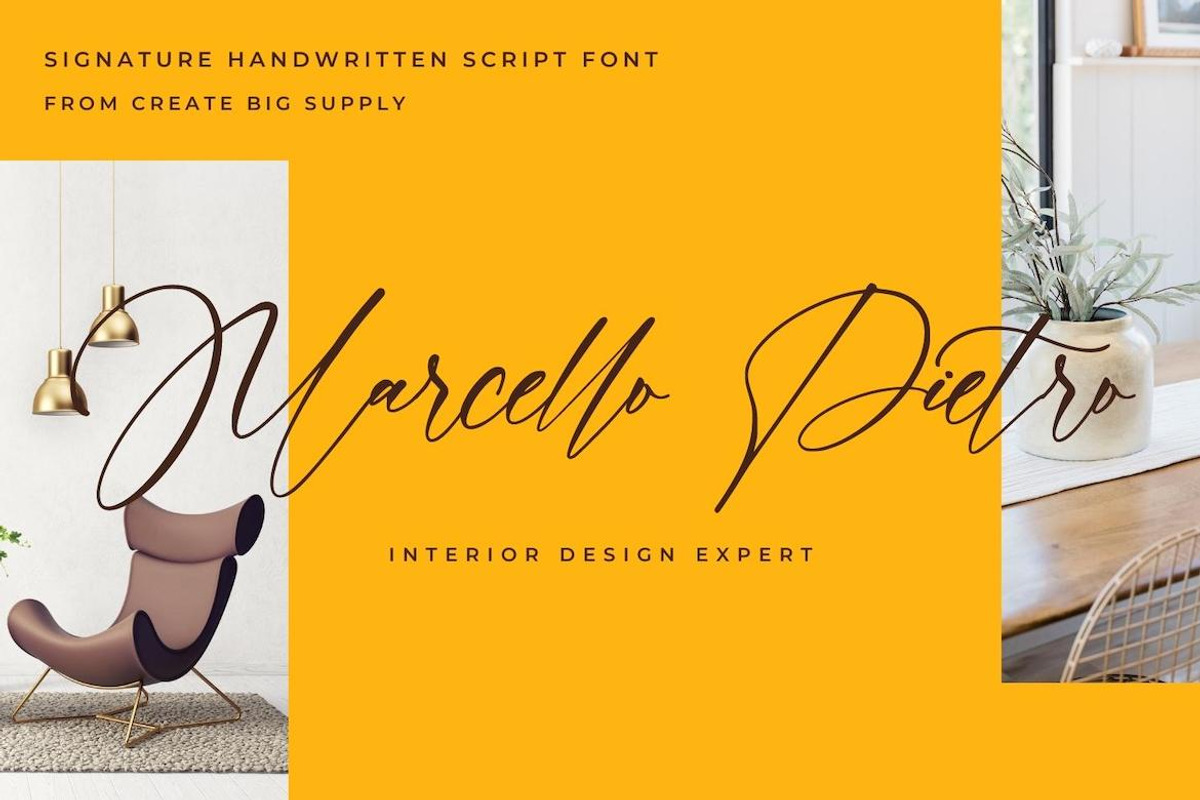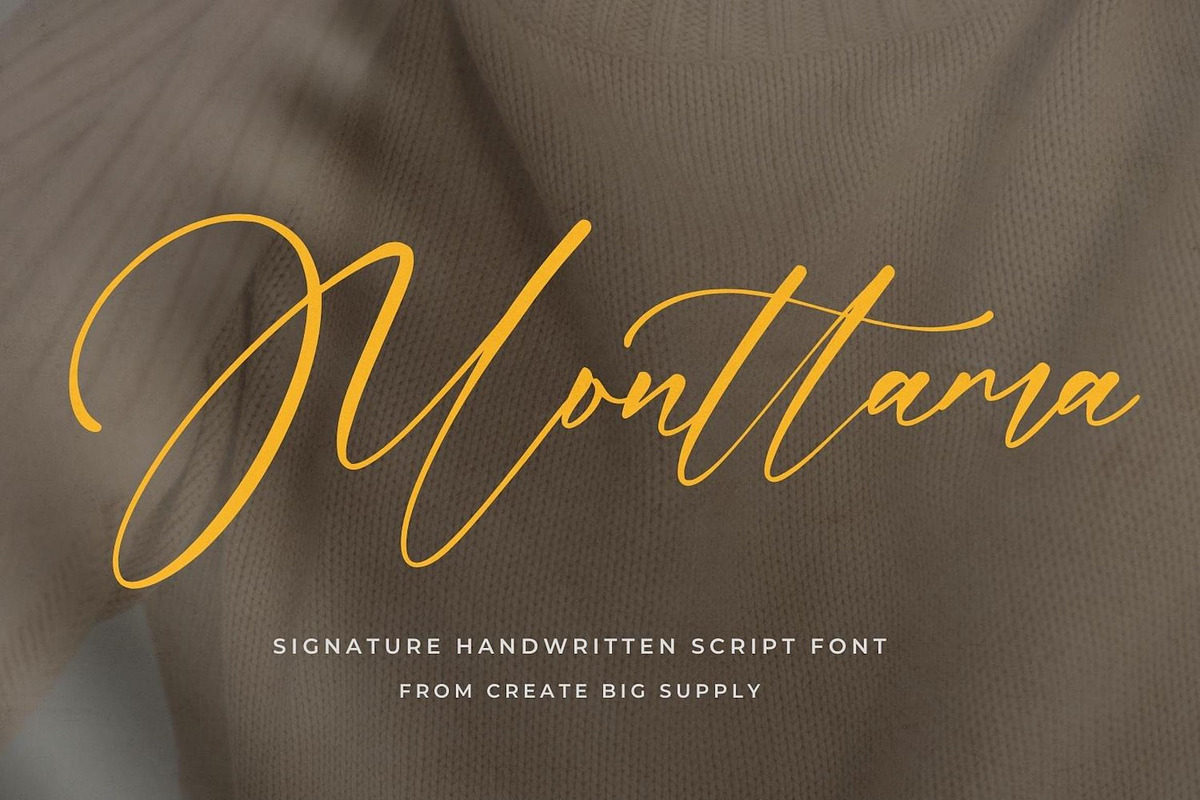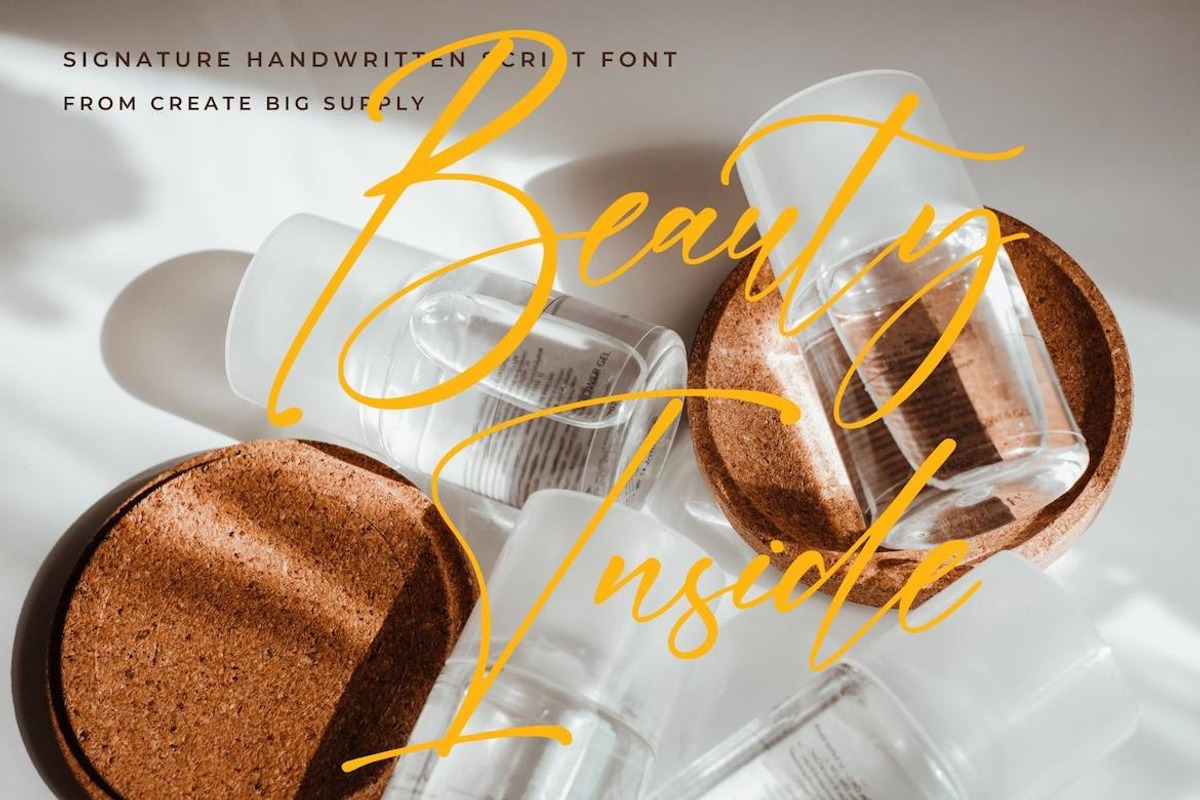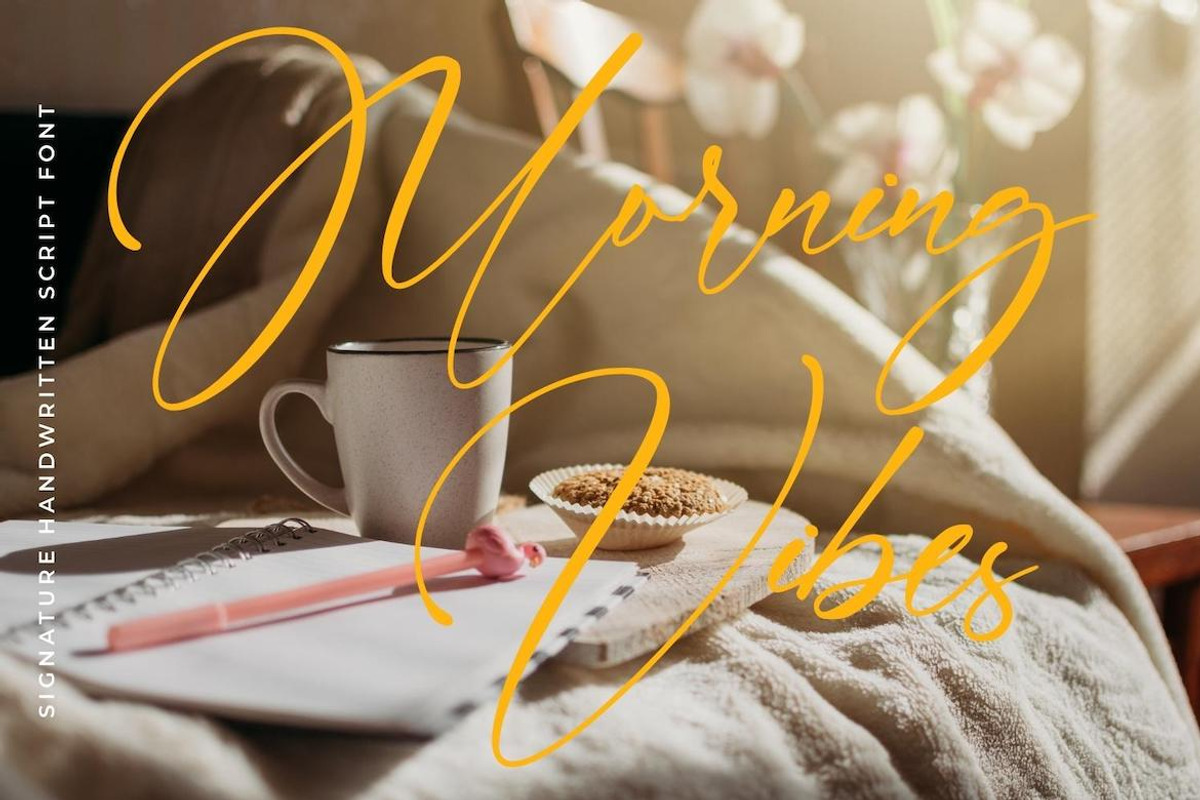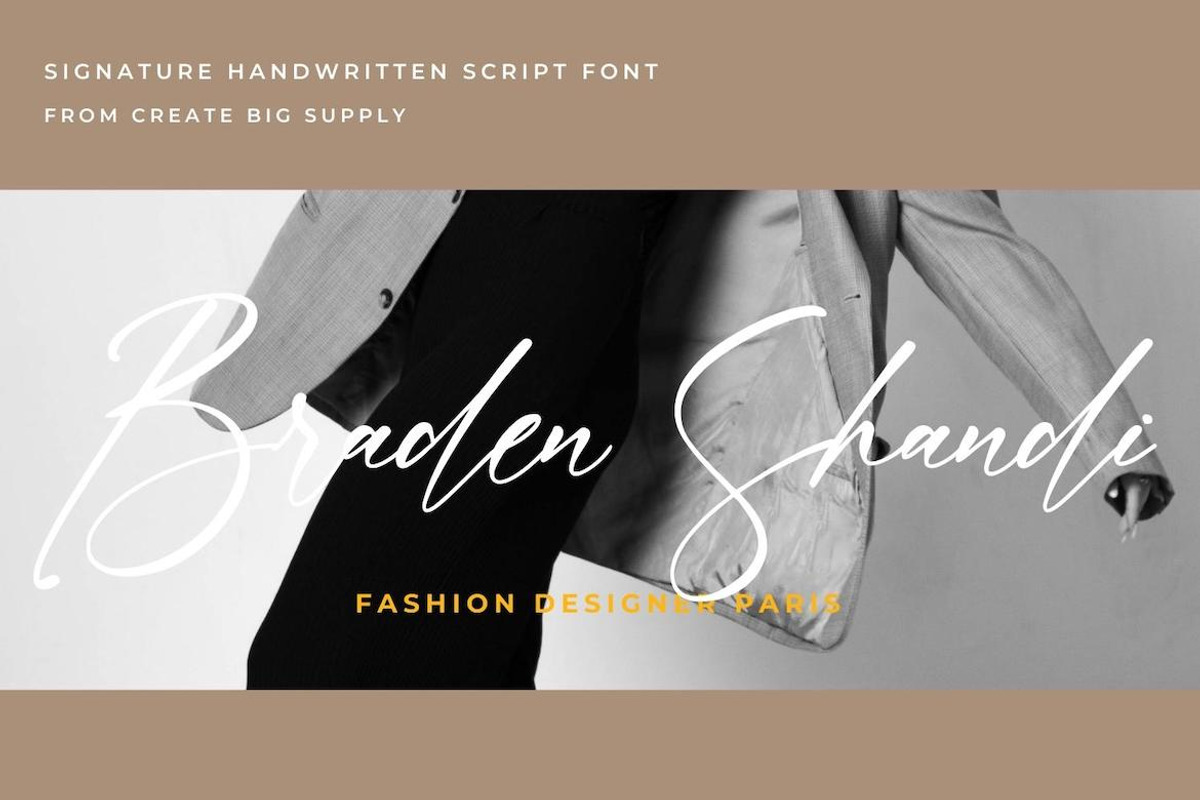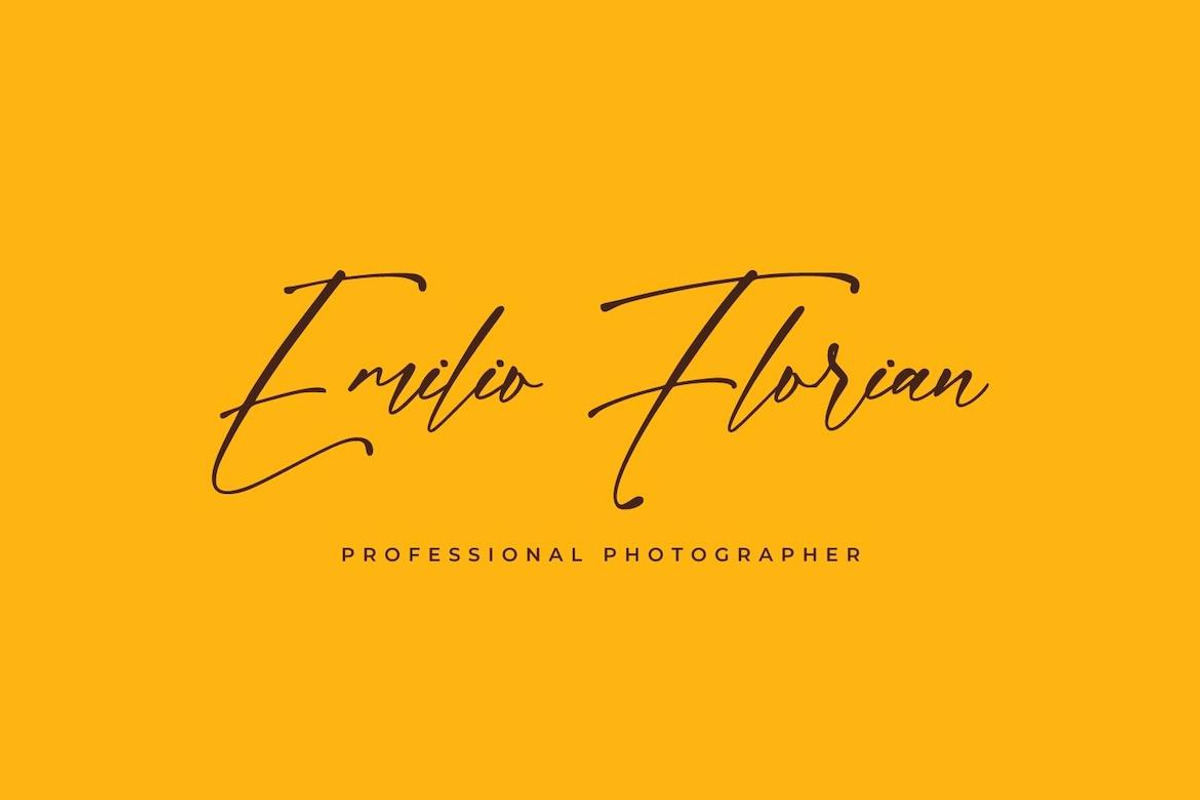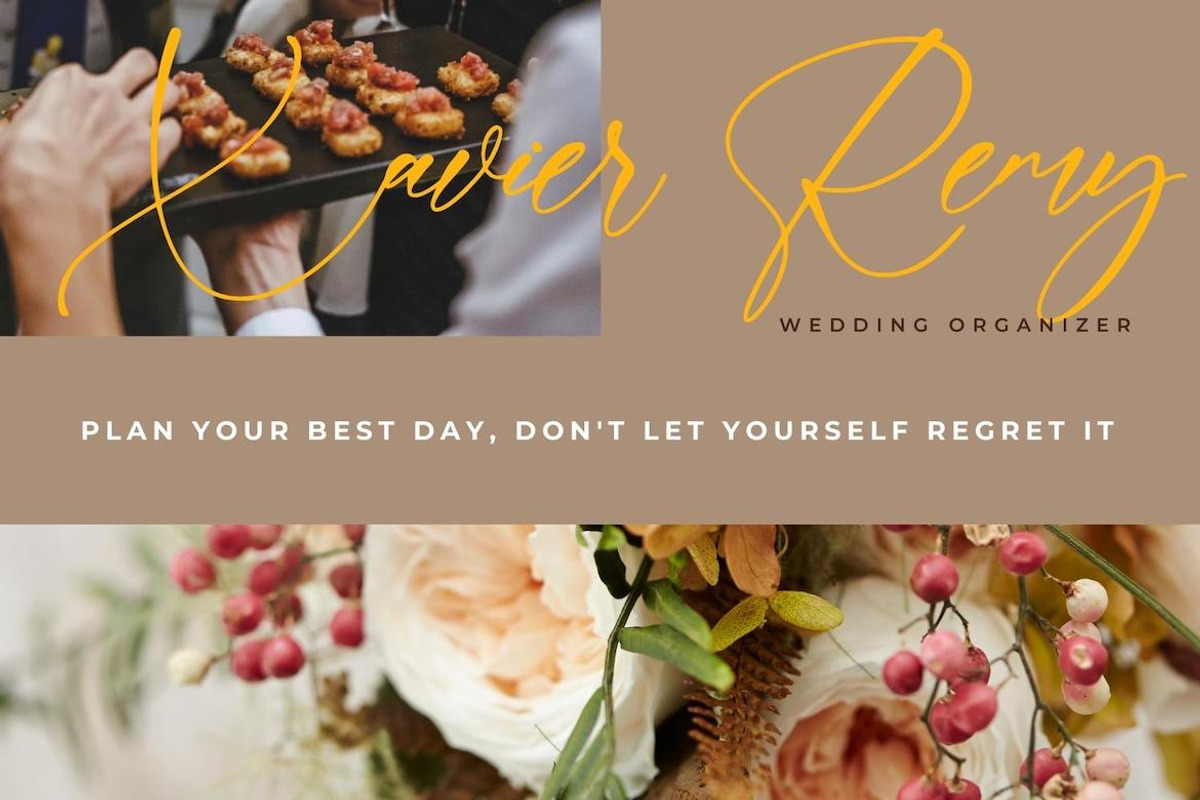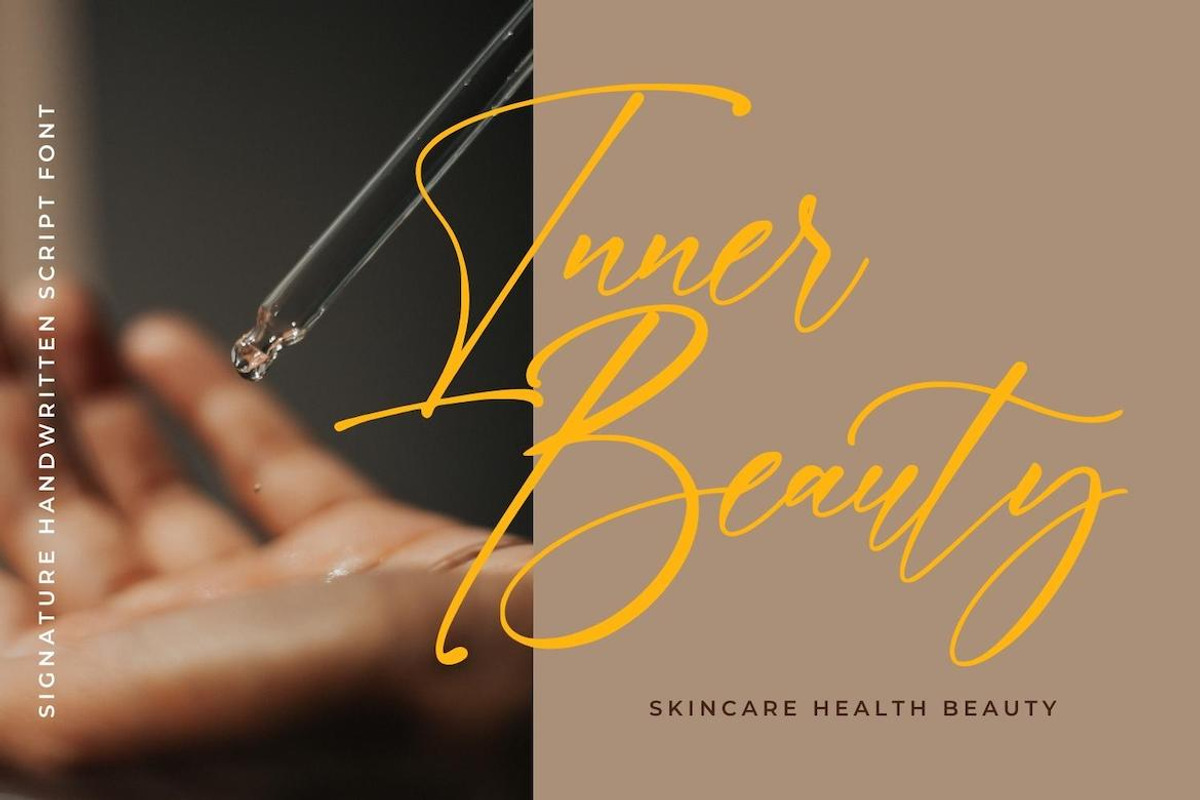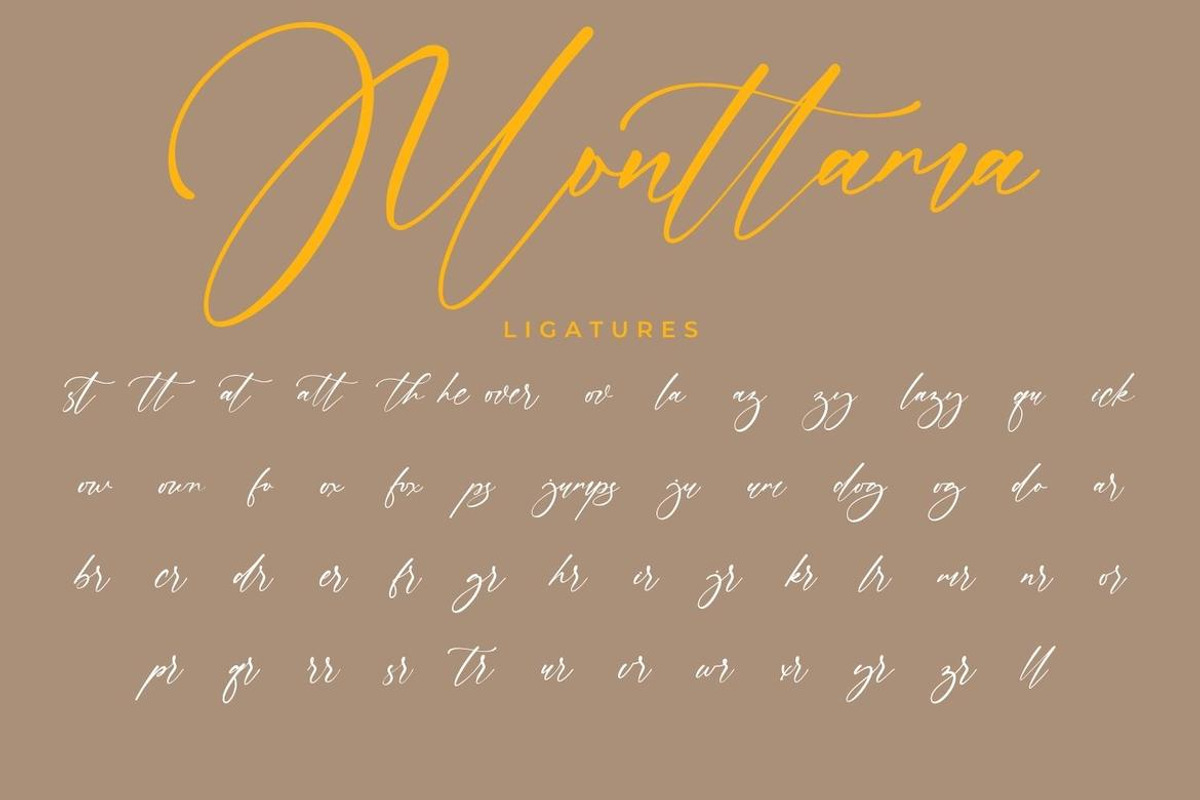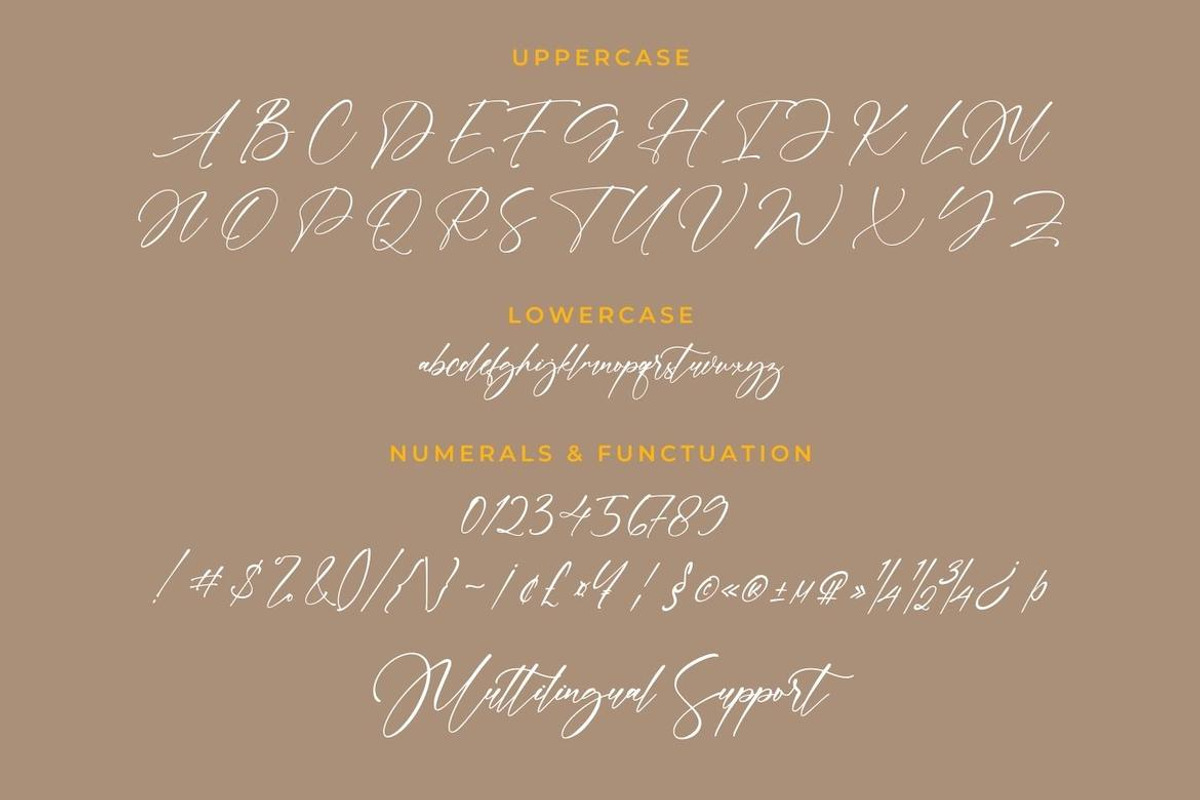
Monttama Signature Handwriting
Introducing Monttama, our newest creation in the realm of script signature handwriting fonts. Meticulously crafted, Monttama delivers outstanding results and brings an air of elegance to your designs. With its natural style, this font is a perfect choice for projects that require a touch of authenticity, such as signatures, logos, brand identities, and more. Monttama features both uppercase and lowercase letters, numbers, and punctuations, ensuring versatility and compatibility across various design elements. It also supports multiple languages, making it accessible to a global audience. The font incorporates ligatures and is PUA encoded for easy access to special characters. Don't miss the opportunity to elevate your projects with the timeless charm of Monttama Script Signature Handwriting Font.